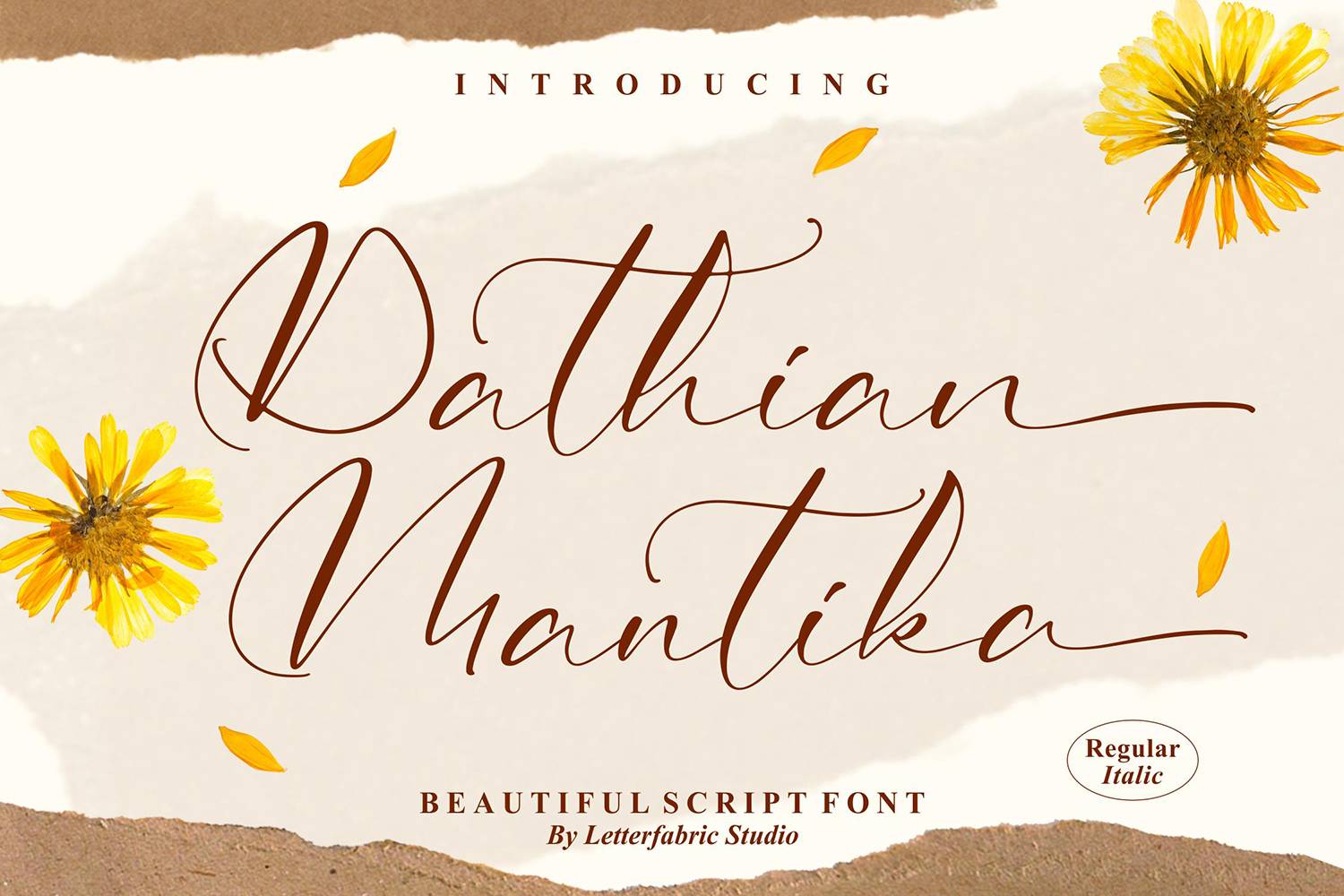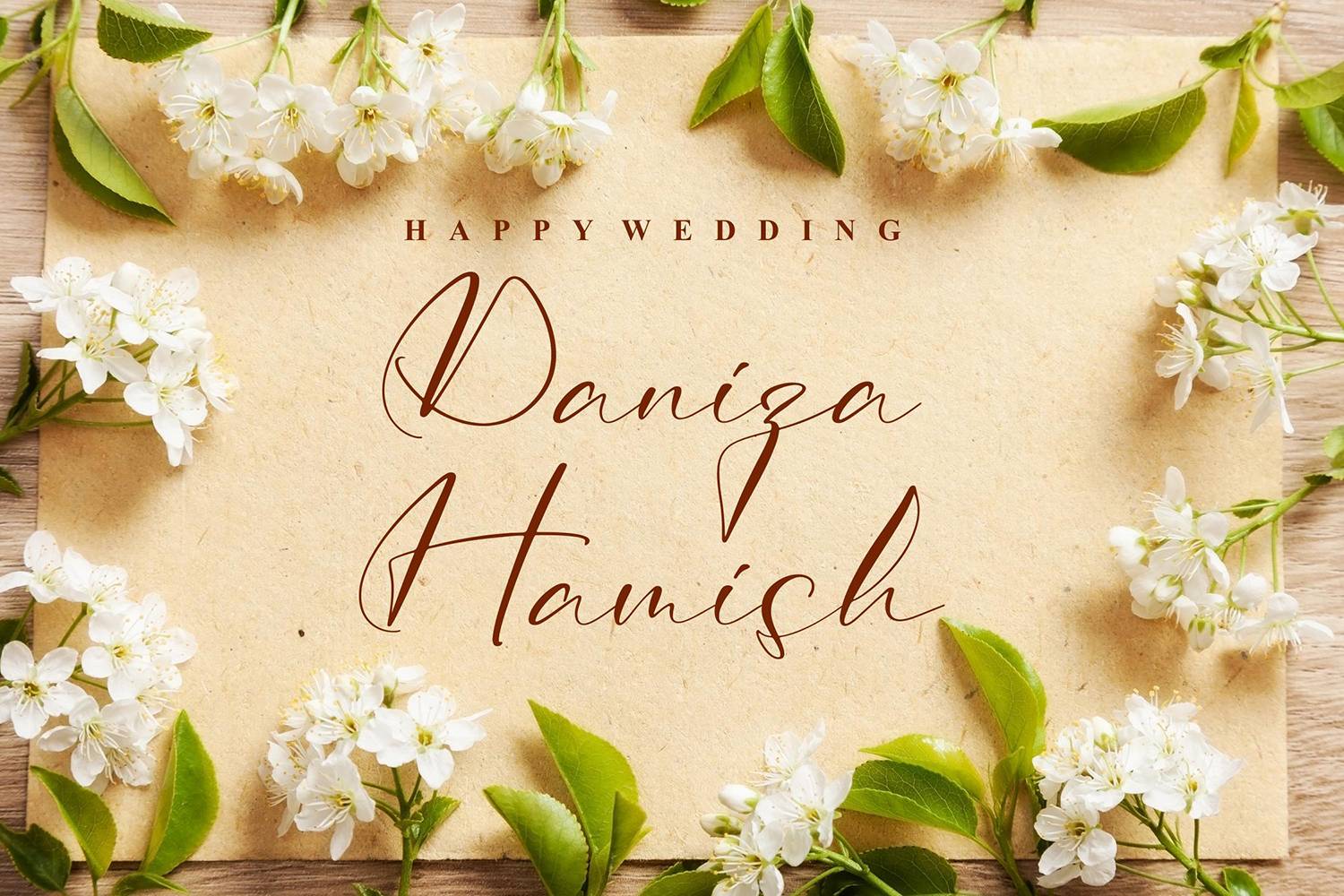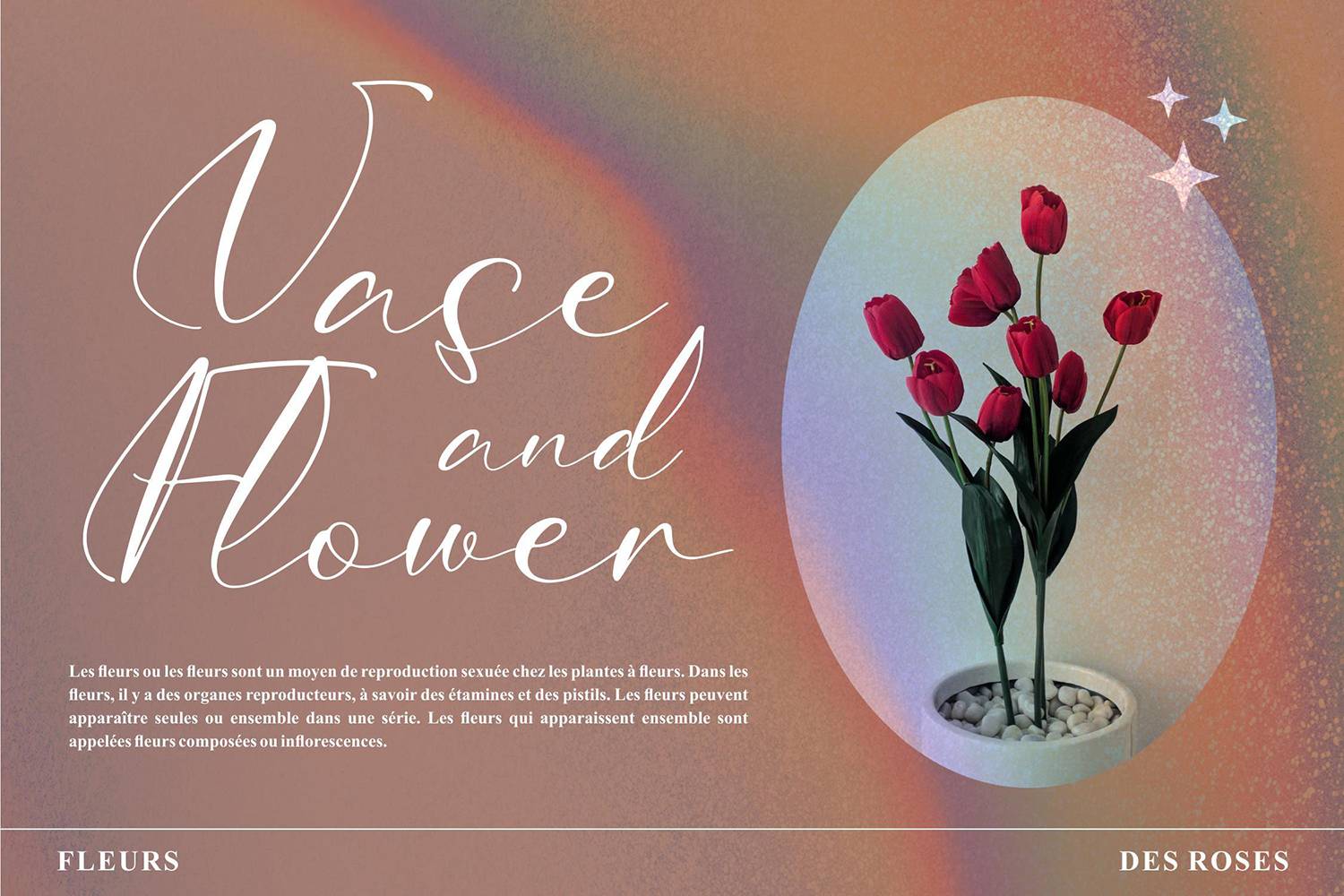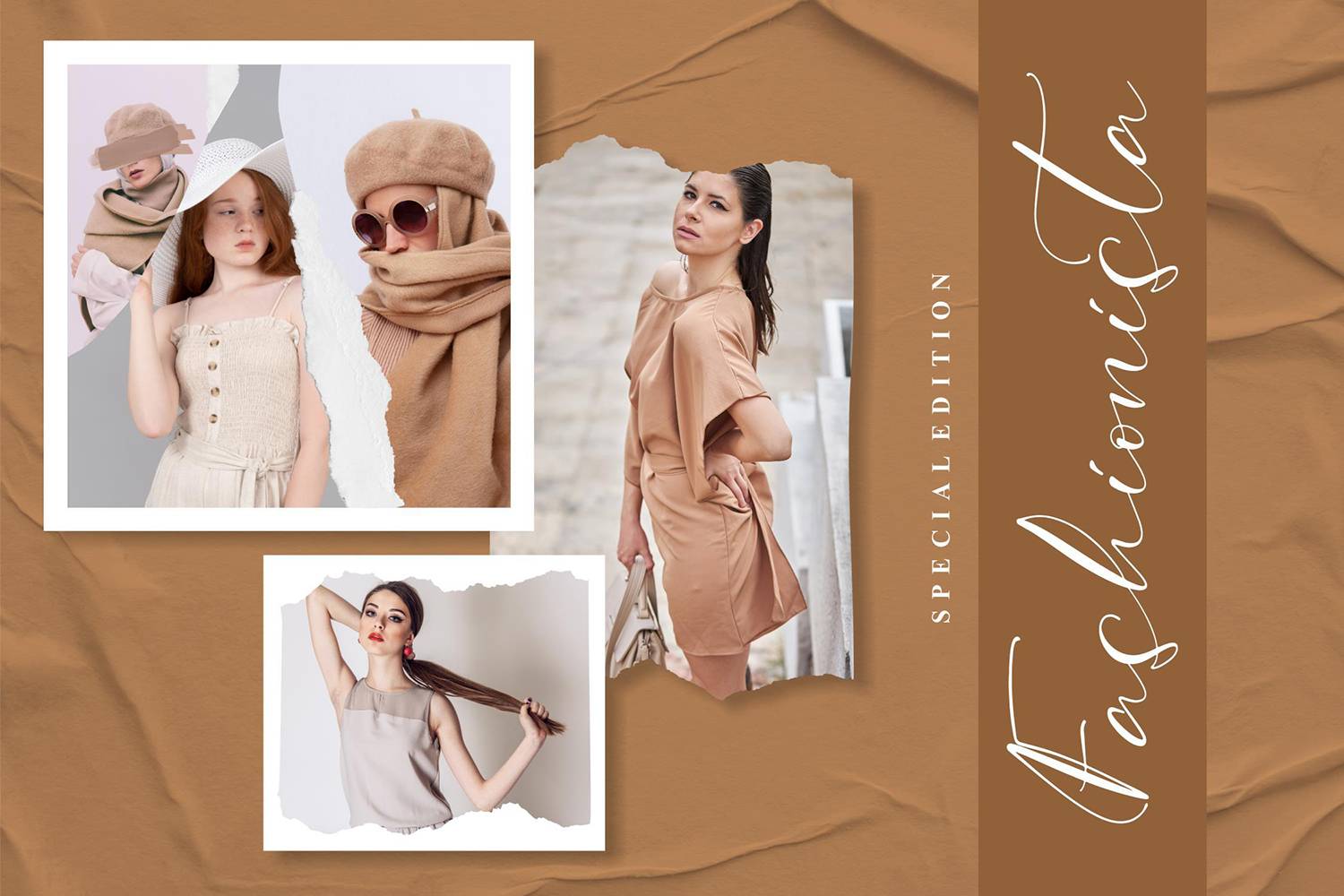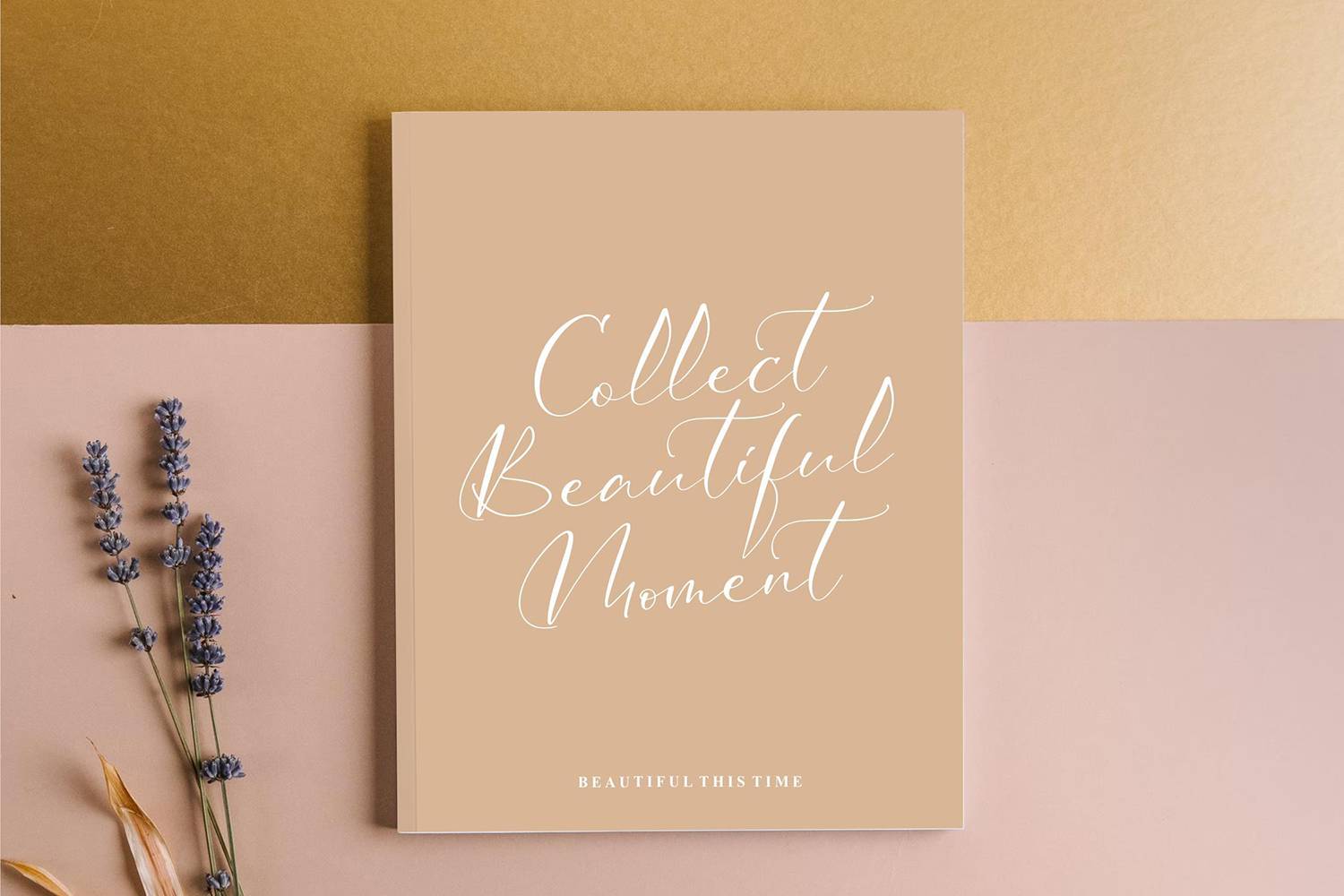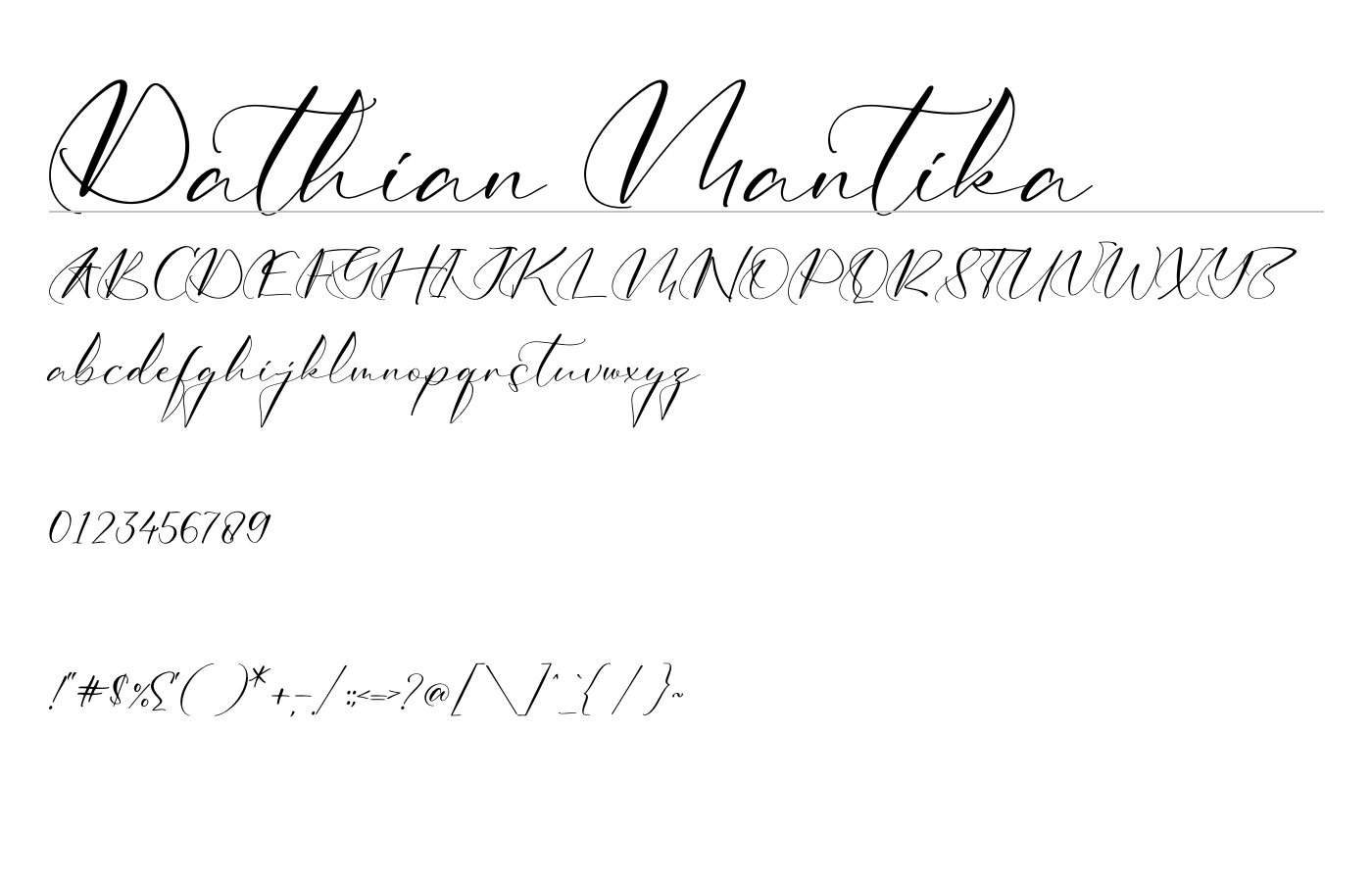
Dathian Mantika is an elegant, slender script font characterized by its fine, flowing strokes and high contrast between thick and thin lines, lending it a delicate yet sophisticated appearance. Its tall, graceful letterforms with ornate swashes evoke a refined, luxurious feel, making it perfect for wedding invitations, high-end branding, and elegant packaging where a romantic and stylish touch is desired. This font shines best in large display settings such as headlines or logos, where its intricate details can be fully appreciated.
Dathian Mantika Font
About Dathian Mantika Font